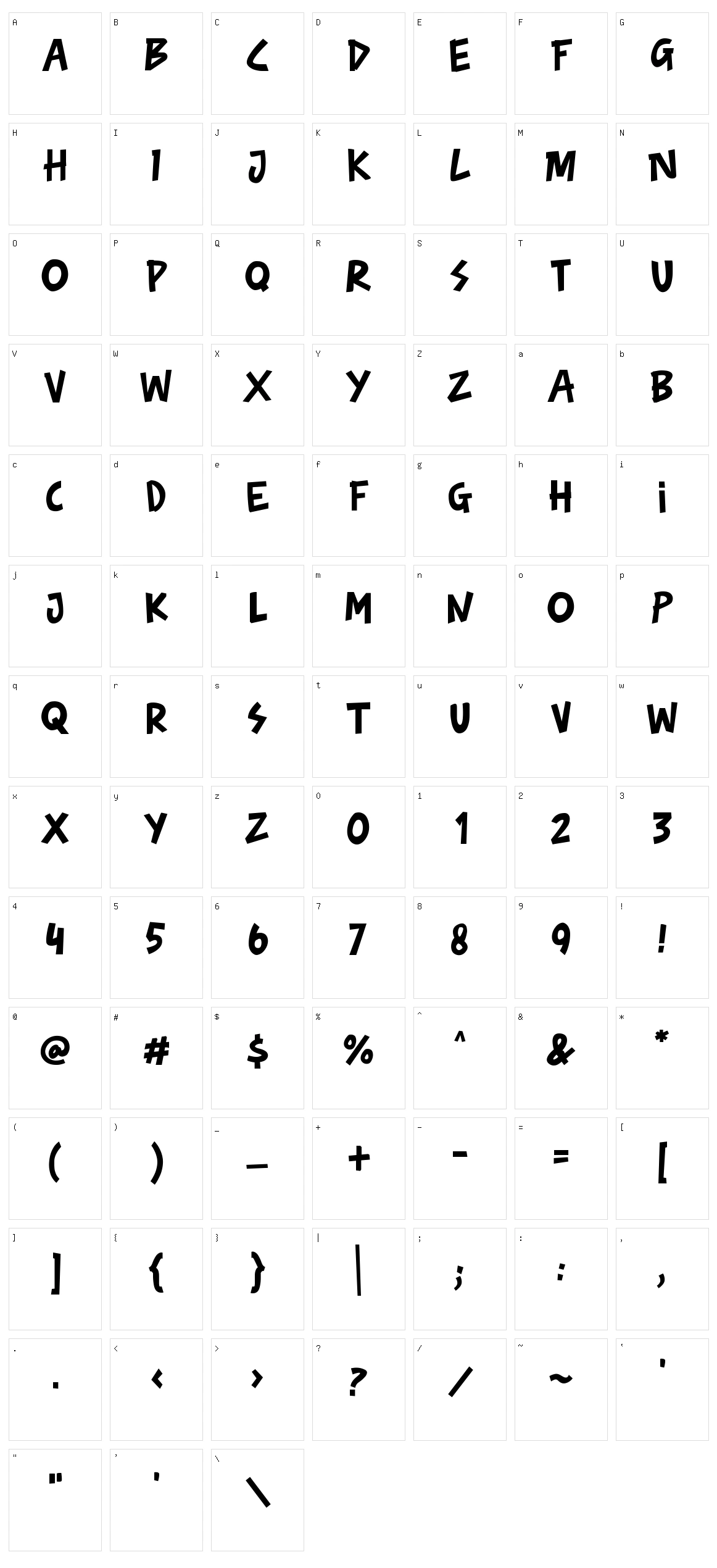
The free font The Prison is carefully designed by Ryan Rivaldo Vierra, showcasing a thoughtful balance of creativity and usability and falls under the Cartoon font style. When you download the ZIP file, it contains only 14.32 KB of font files, making it lightweight and quick to download. Please review the license details below to understand permitted usage and distribution rights. If license information is not available, we recommend using this font for personal projects only or contacting the author directly for commercial usage permissions.